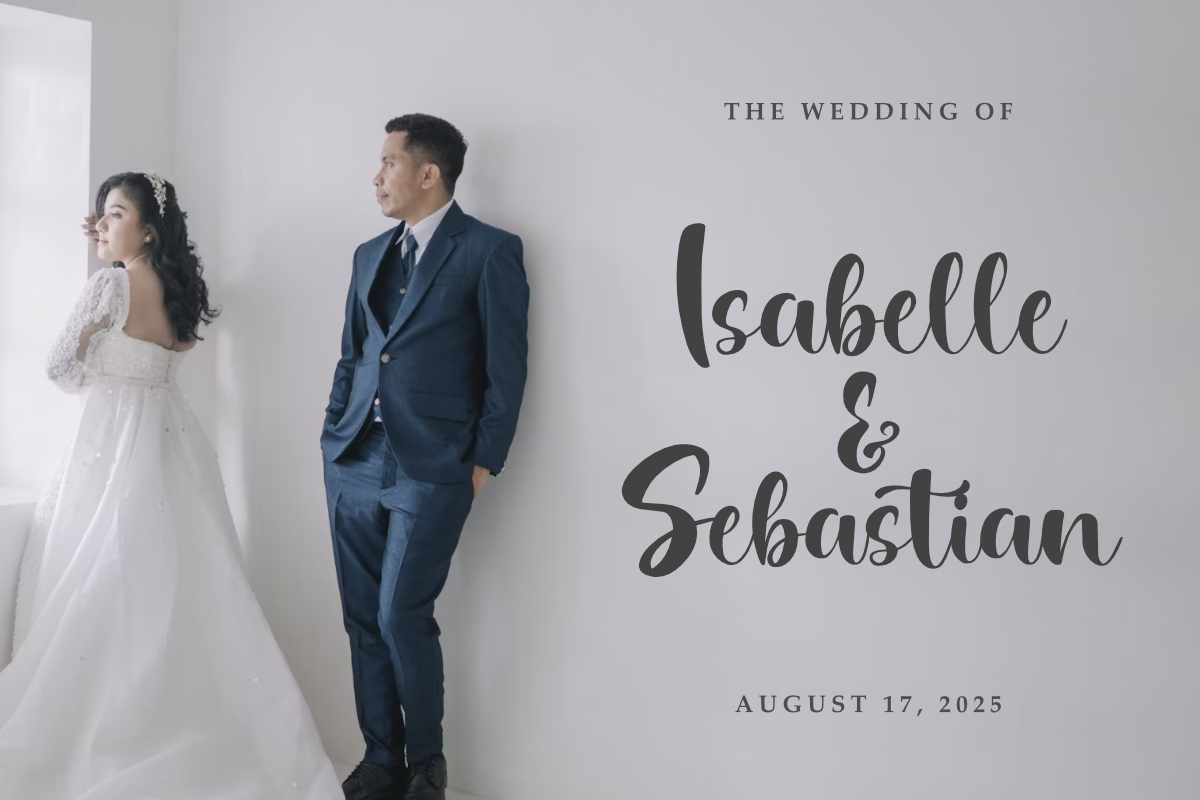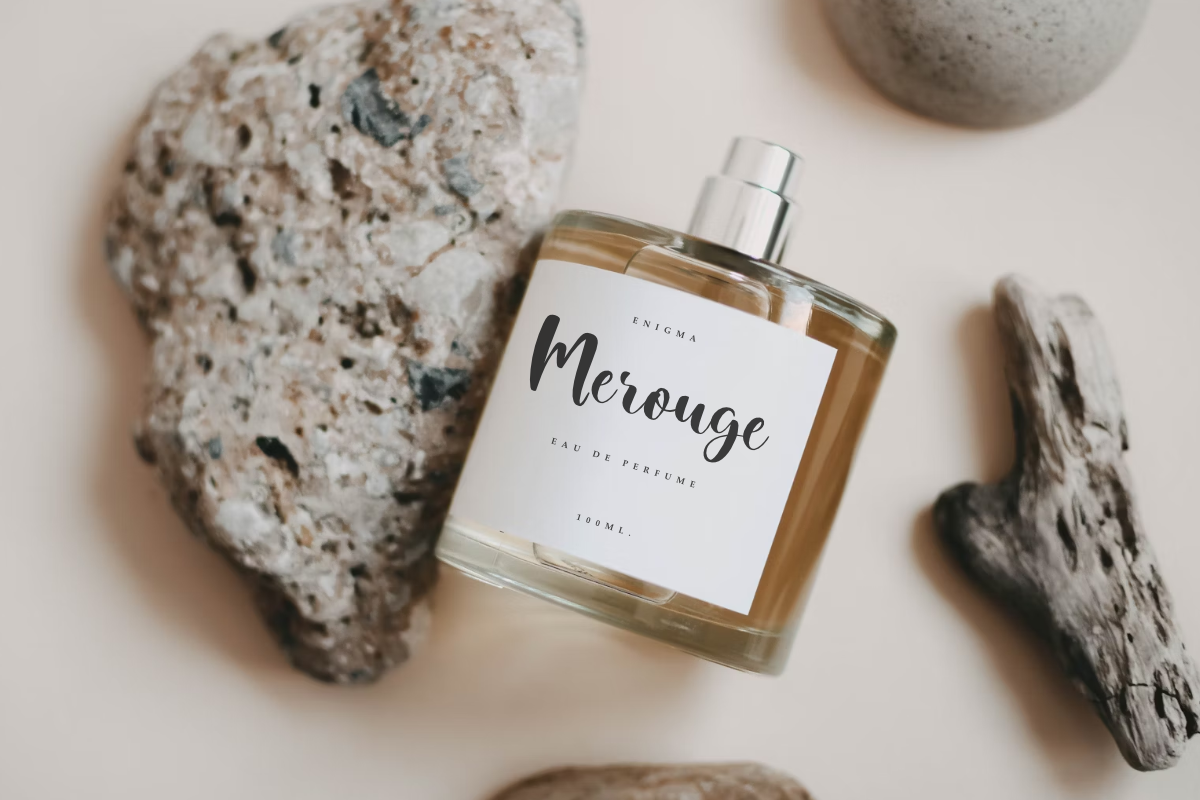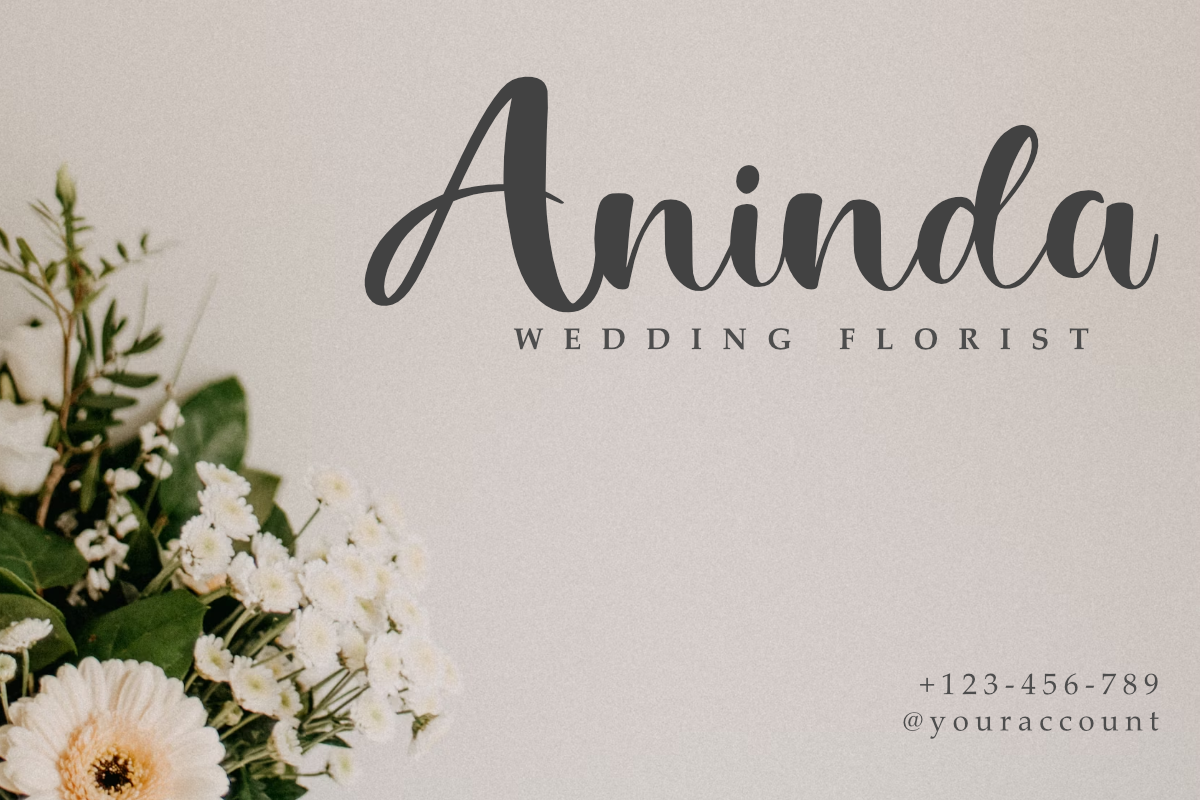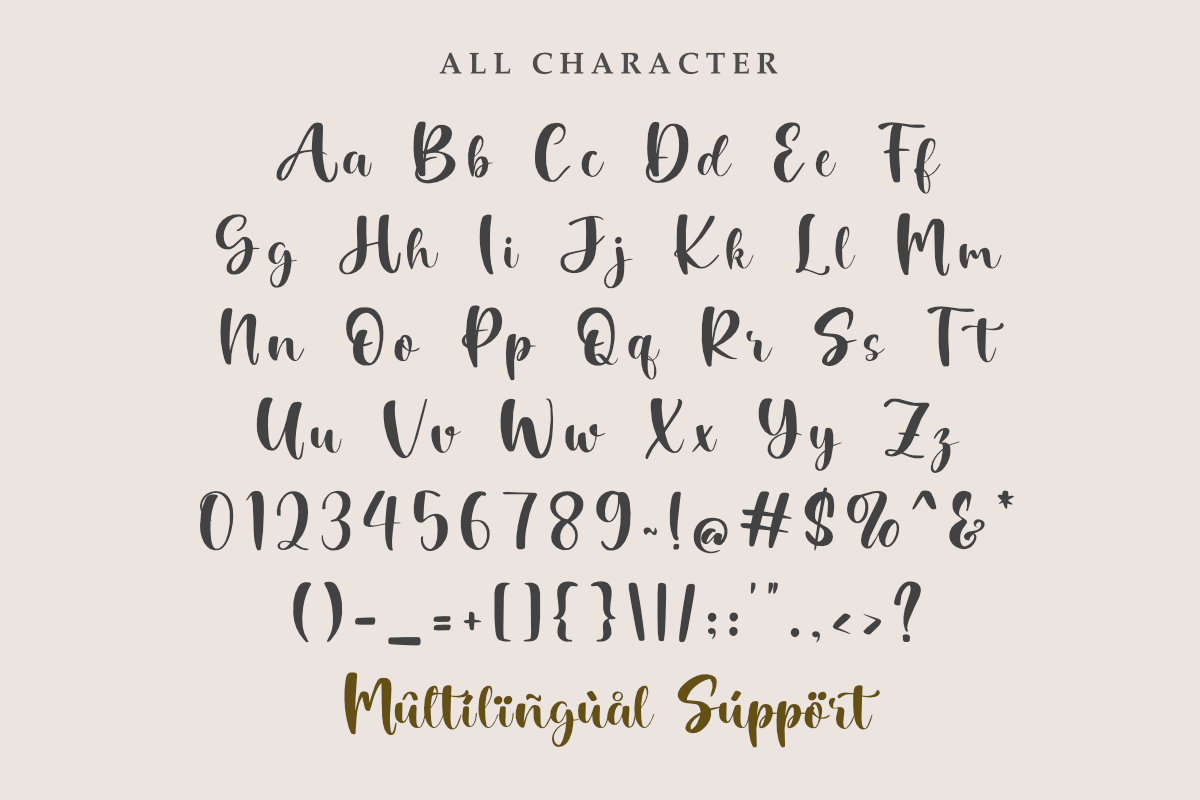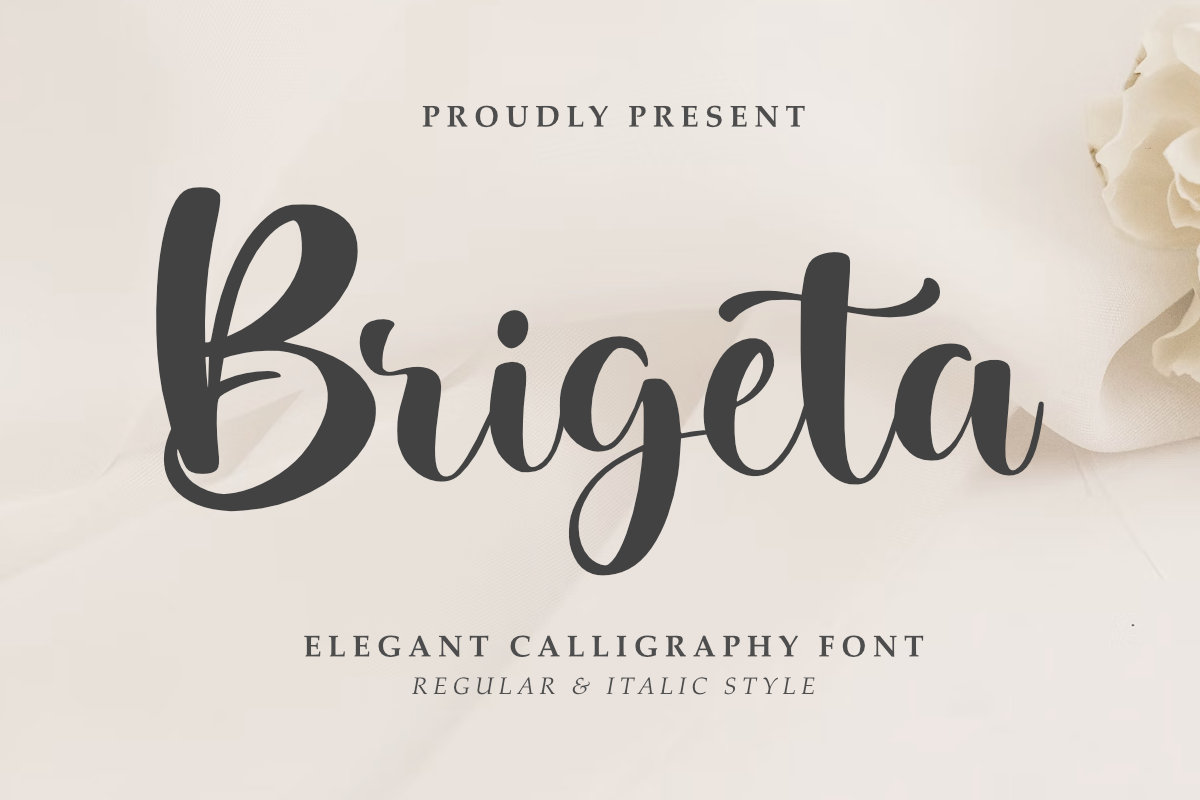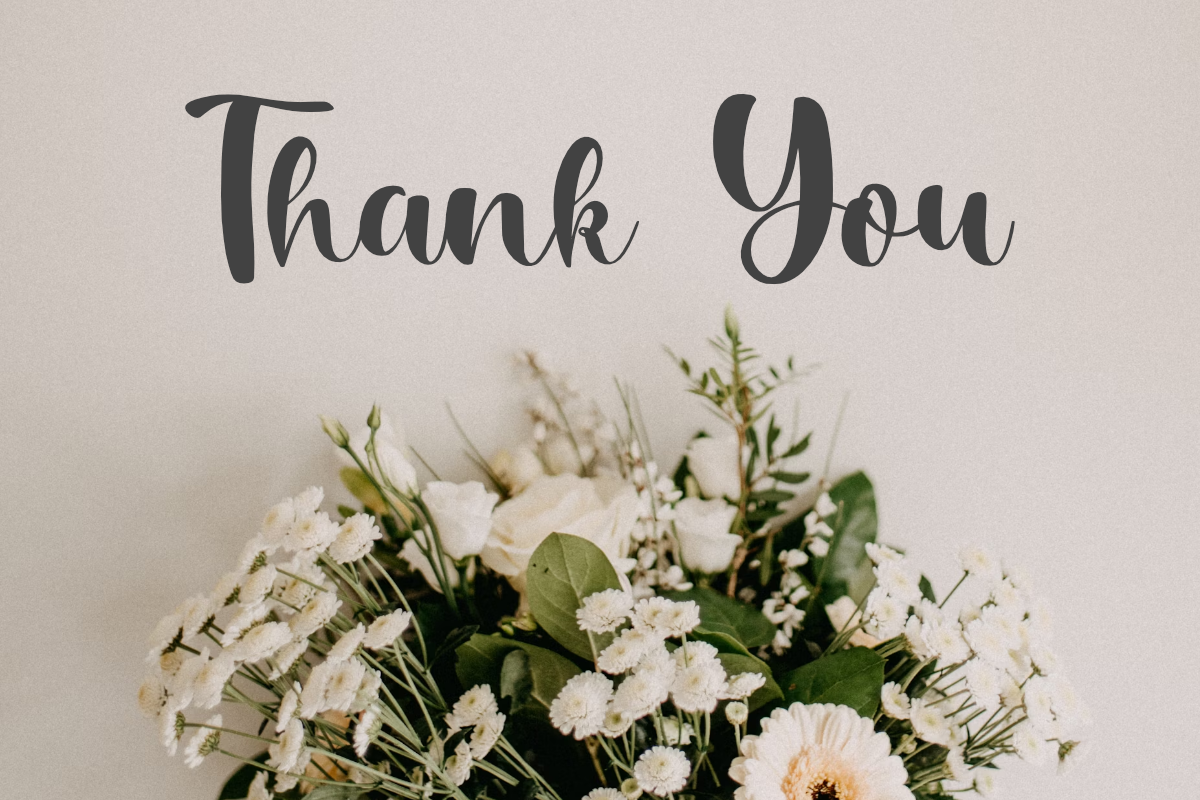
Brigeta - Elegant Script Font
Brigeta is a bold, beautiful, and elegant handwritten script font that combines modern sophistication with a personal touch. Its graceful curves and stylish design make it ideal for branding, weddings, sublimation, print on demand, decals, DIY projects, and small businesses.
Perfect for wedding invitations, logos, branding, headlines, merchandise, and product promotions, Brigeta is available in OTF and TTF formats and features PUA encoding, ensuring easy access to all glyphs and alternates for creative flexibility.